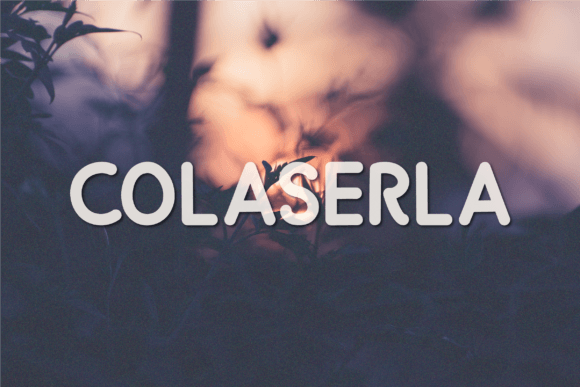
Dive into the whimsical world of Colaserla Font, a captivating sans serif font brimming with personality. Brimming with charm and a touch of playfulness, this all-caps font radiates an aura of joy and lightheartedness. Becraft, the creative mind behind this masterpiece, has meticulously crafted each character to evoke a sense of wonder and delight.
Step into a realm where creativity knows no bounds, where the possibilities are as limitless as your imagination. Whether you're an avid crafter seeking unique designs for your handmade creations or a digital artist eager to add a touch of whimsy to your designs, Colaserla Font is your steadfast companion. Its versatility extends beyond the physical, inviting you to embrace its magic in presentations, greeting cards, and a myriad of other digital endeavors.
More than just a font, Colaserla Font is an invitation to embark on a journey of self-expression, where your ideas take center stage. Its quirky charm captivates the eye, while its playful nature sparks a sense of joy and wonder. Whether you're a seasoned designer or a novice just starting out, Colaserla Font seamlessly adapts to your creative vision.
Unleash your inner artist and transform your designs into captivating works of art. Colaserla Font effortlessly elevates your projects to new heights, adding a touch of magic to every element. Let your imagination soar as you explore the endless possibilities that await you with this captivating font.